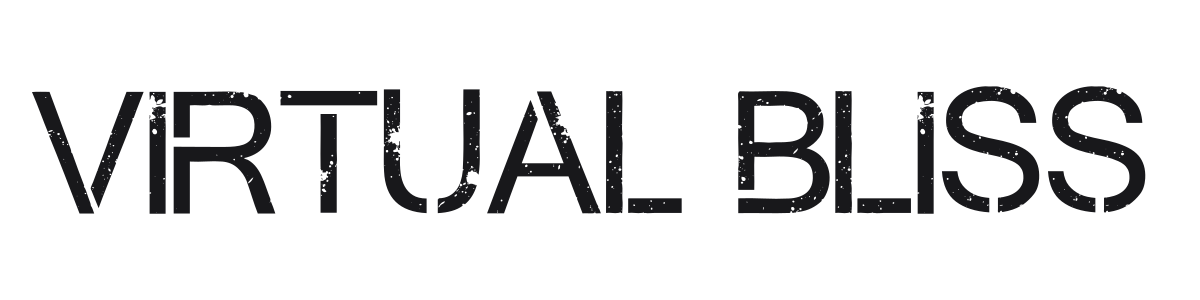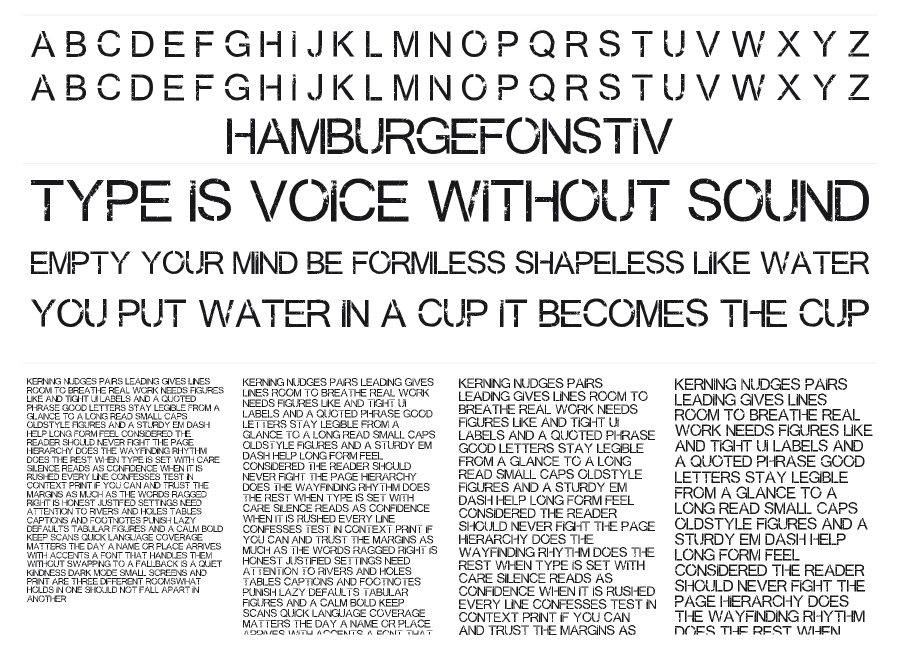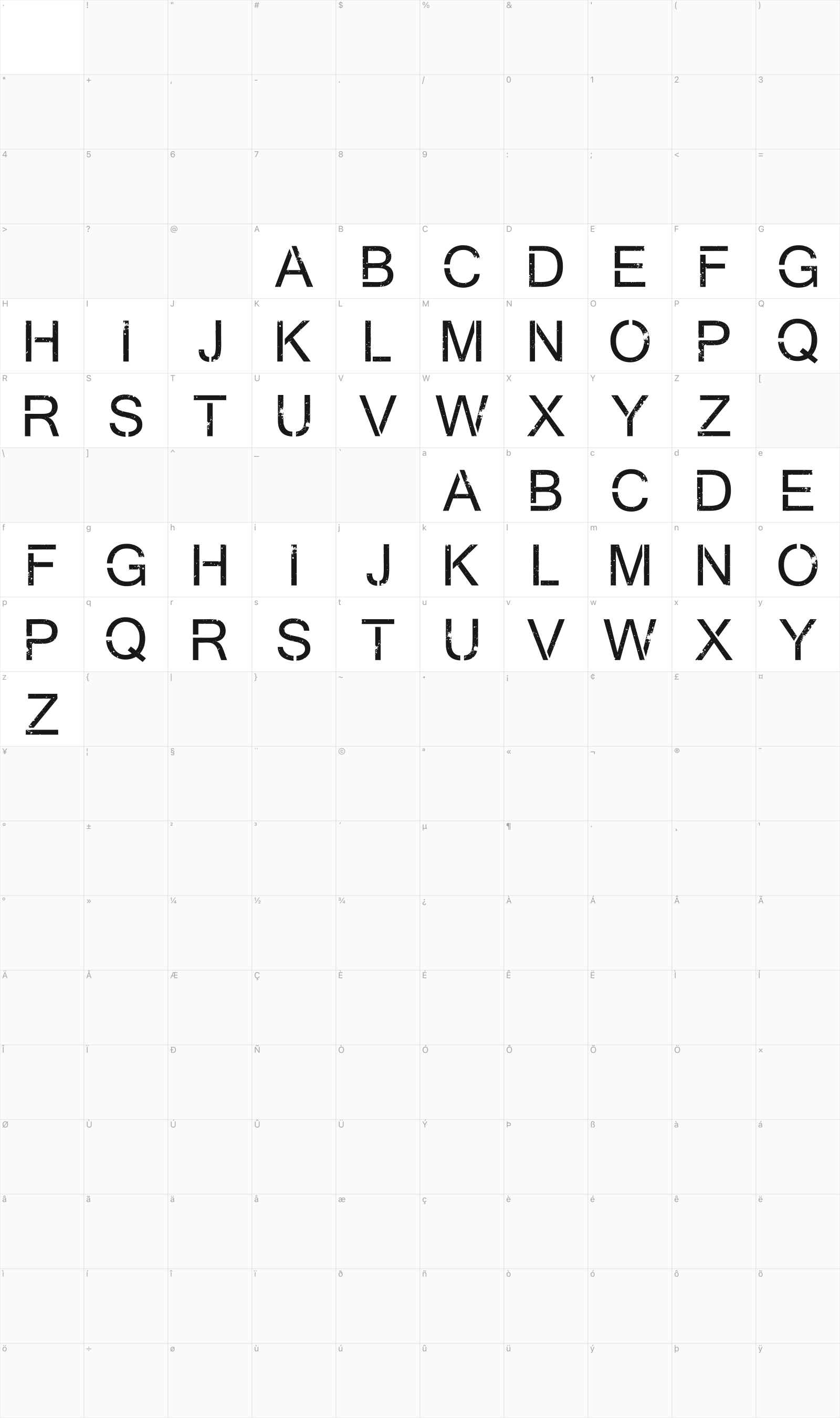
Virtual Bliss
Virtual Bliss is a wide stencil sans-serif with a heavy distressed texture that reads like ink stamped on rough cardboard. Cut gaps interrupt strokes at key junctions while eroded edges add genuine grit, pushing it well beyond a clean stencil template. The result lands somewhere between military surplus and underground street culture.